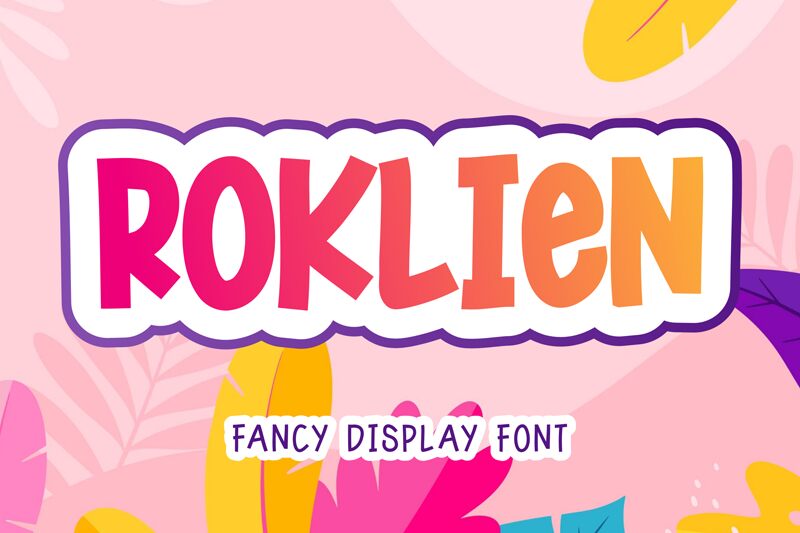
Roklien, the latest display font designed by Pandan Wangi, is the perfect addition to any fun and playful project. With its semi-light weight and semi-condensed width, Roklien is versatile enough to be used in a range of designs such as posters, logos, and packaging. The comic style of this font adds a touch of whimsy to any design project while still maintaining readability. Use Roklien for your next children's book cover or for a quirky restaurant menu. Its unique style will add character to any project it's used in.